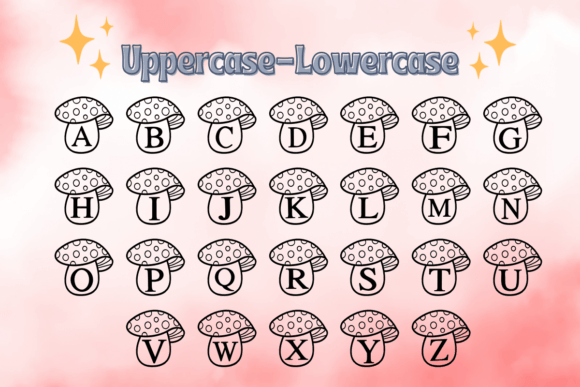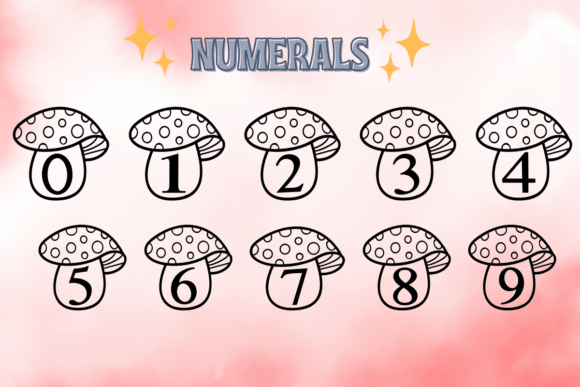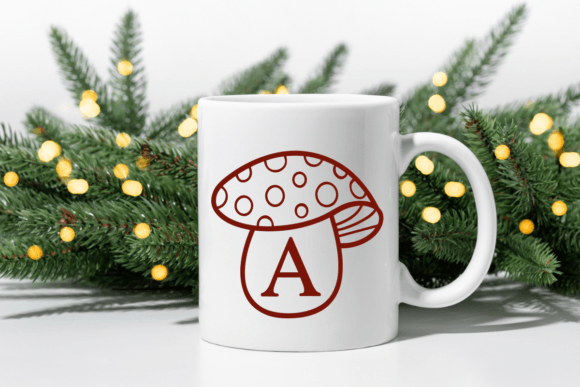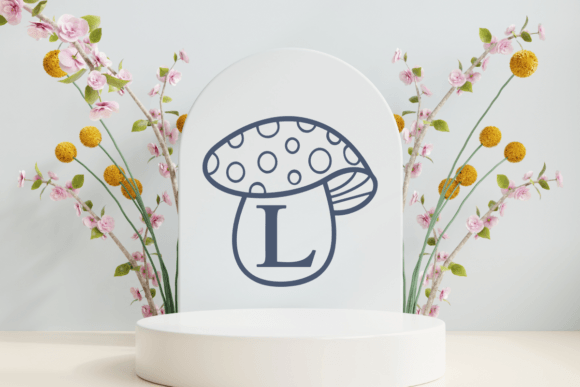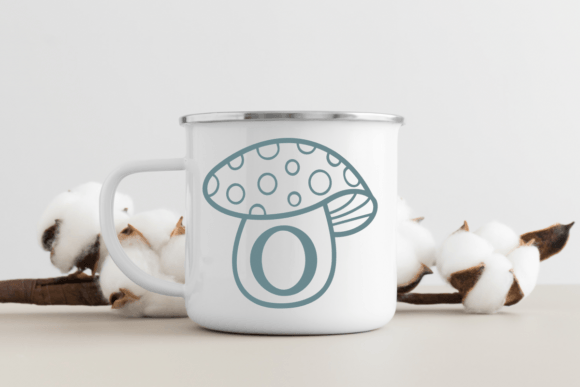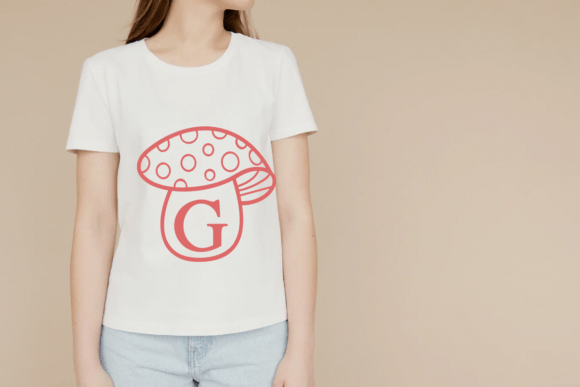
Discover the Whimsy of Cute Mushroom Font
Do you ever find yourself doodling in the margins of your notes, imagining the perfect font to match your creative expression? Maybe you’ve been searching for the perfect way to add a touch of personality to your greeting cards or social media posts. Well, you’re in luck! The Cute Mushroom Font is here to bring a playful twist to your designs.
This adorable font is perfect for anyone who wants to add a touch of whimsy to their work. From taking notes to making greeting cards, Cute Mushroom Font is a versatile tool that can be used in a variety of creative projects. Its unique charm makes it a valuable asset for designers looking to add a personal touch to their designs. With its endless possibilities, the Cute Mushroom Font is sure to become your new go-to font for all your creative needs.
Cute Mushroom Font Key Features
- Font Family: Cute Mushroom Font is a unique, hand-drawn font designed to evoke a whimsical and playful feel.
- Character Count: The font family includes over 300 glyphs, covering a wide range of languages and characters.
- Unique Characteristics: Features distinctive, hand-crafted details and subtle texture, giving it a charming and organic feel.
Cute Mushroom Font Review
I recently had the chance to work with the Cute Mushroom Font, and I must say it’s a unique addition to any design project. ✨ One of its standout features is the whimsical touch it brings to text. The font is perfect for creating a playful, childlike atmosphere, making it ideal for branding, advertising, or even children’s content.
Here are some of the font’s key strengths:
- ✨ Whimsical and charming aesthetic
- ✨ Highly versatile for various design applications
- ✨ Great for creating a sense of nostalgia or retro charm
However, I did encounter a few limitations:
- ⚠️ Limited font sizes and weights available
- ⚠️ Not suitable for formal or professional projects
- ⚠️ May be too childish for certain audiences
Overall, the Cute Mushroom Font is a delightful addition to any designer’s toolkit. While it may have its limitations, its unique charm and versatility make it a great choice for the right project. Just be mindful of its limitations and use it accordingly.
Cute Mushroom Font: A Practical Application Guide
Tips for Getting the Most Out of Cute Mushroom Font
To get the most out of the Cute Mushroom Font, try using it in conjunction with bold or italic text for added emphasis. You can also experiment with different font sizes and styles to create a visually appealing design.
The Cute Mushroom Font is perfect for creating playful and whimsical designs, such as children’s book covers, party invitations, and social media graphics. It’s also great for adding a touch of personality to logos, branding materials, and advertising campaigns.